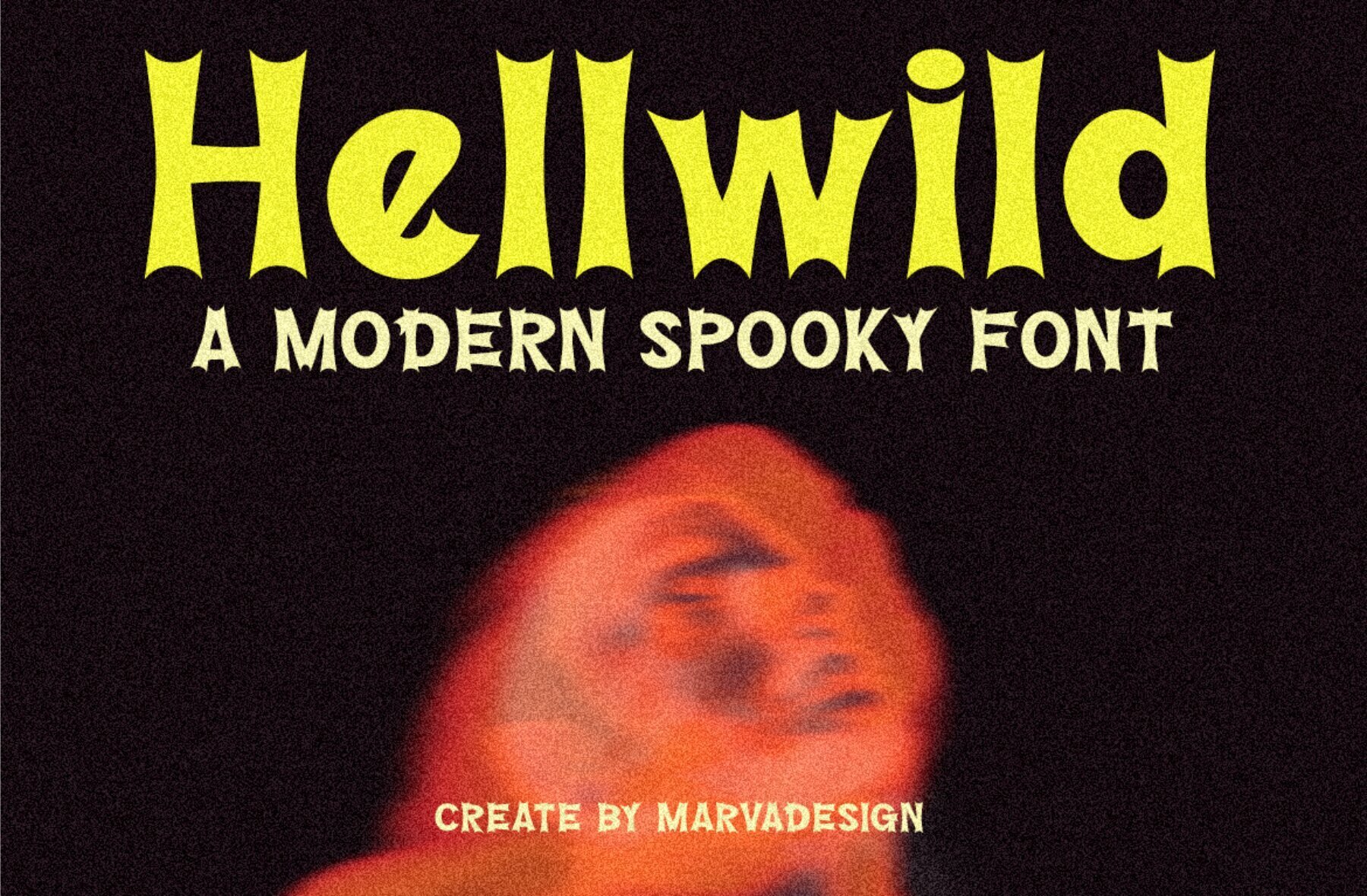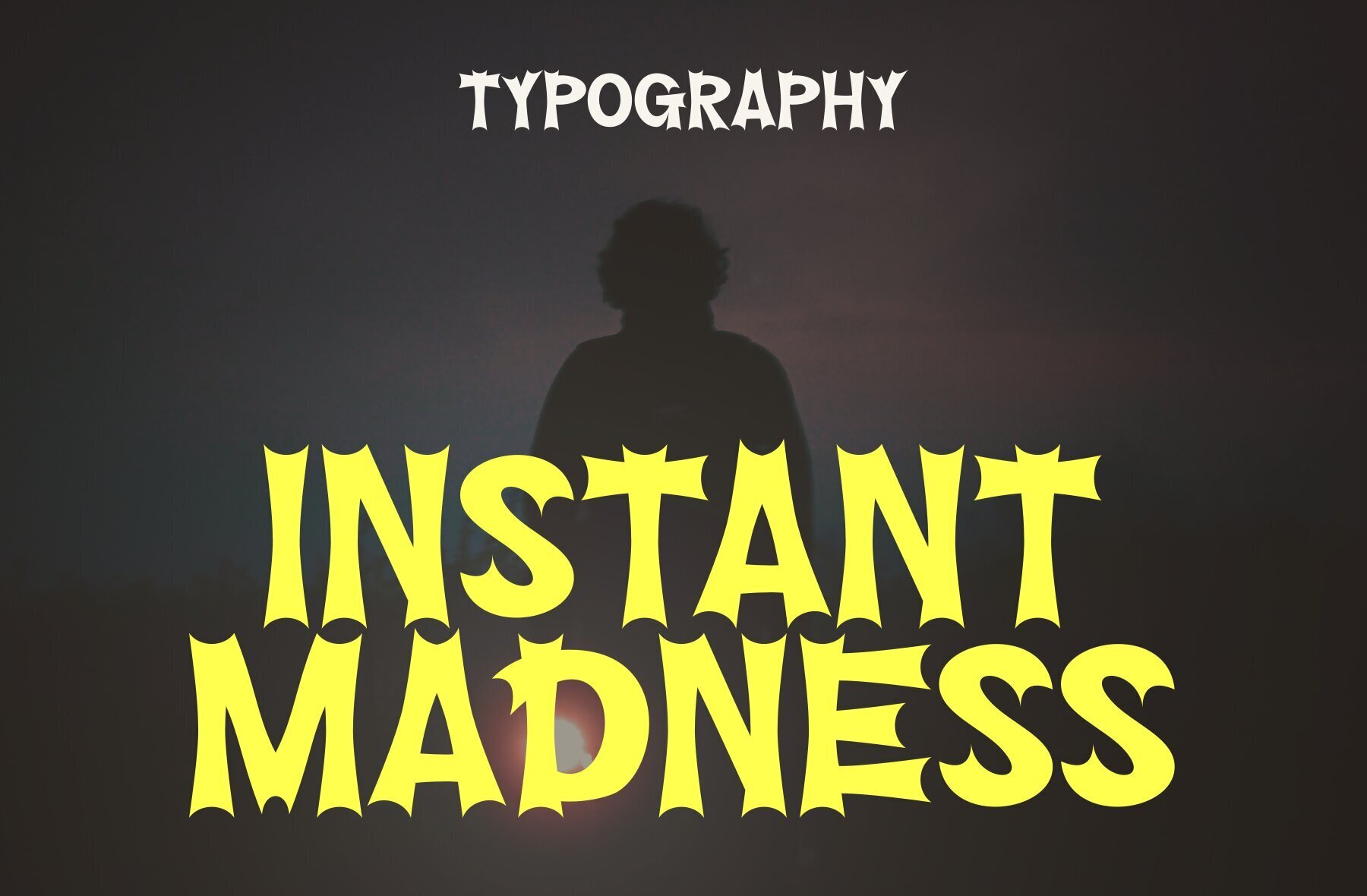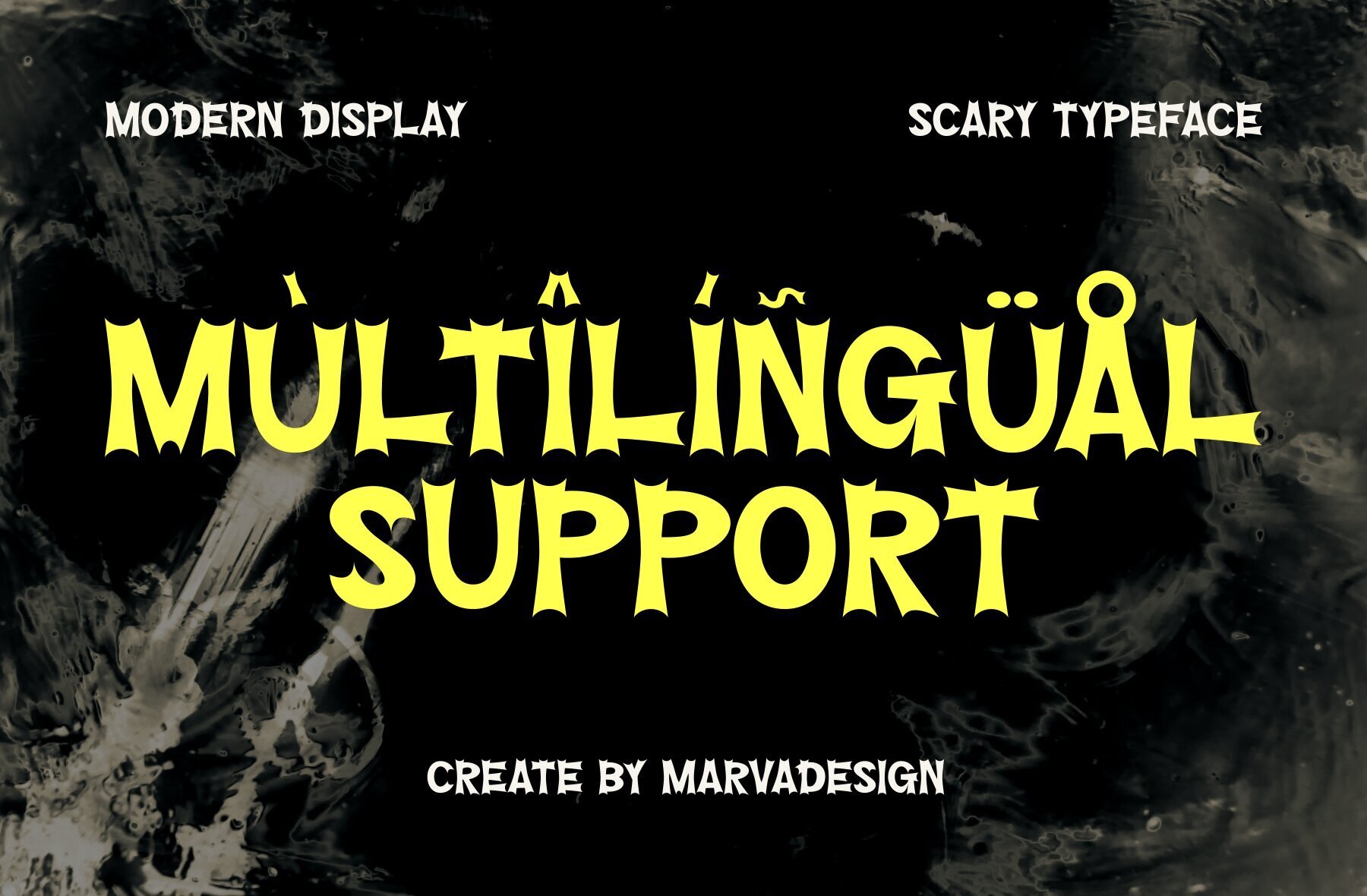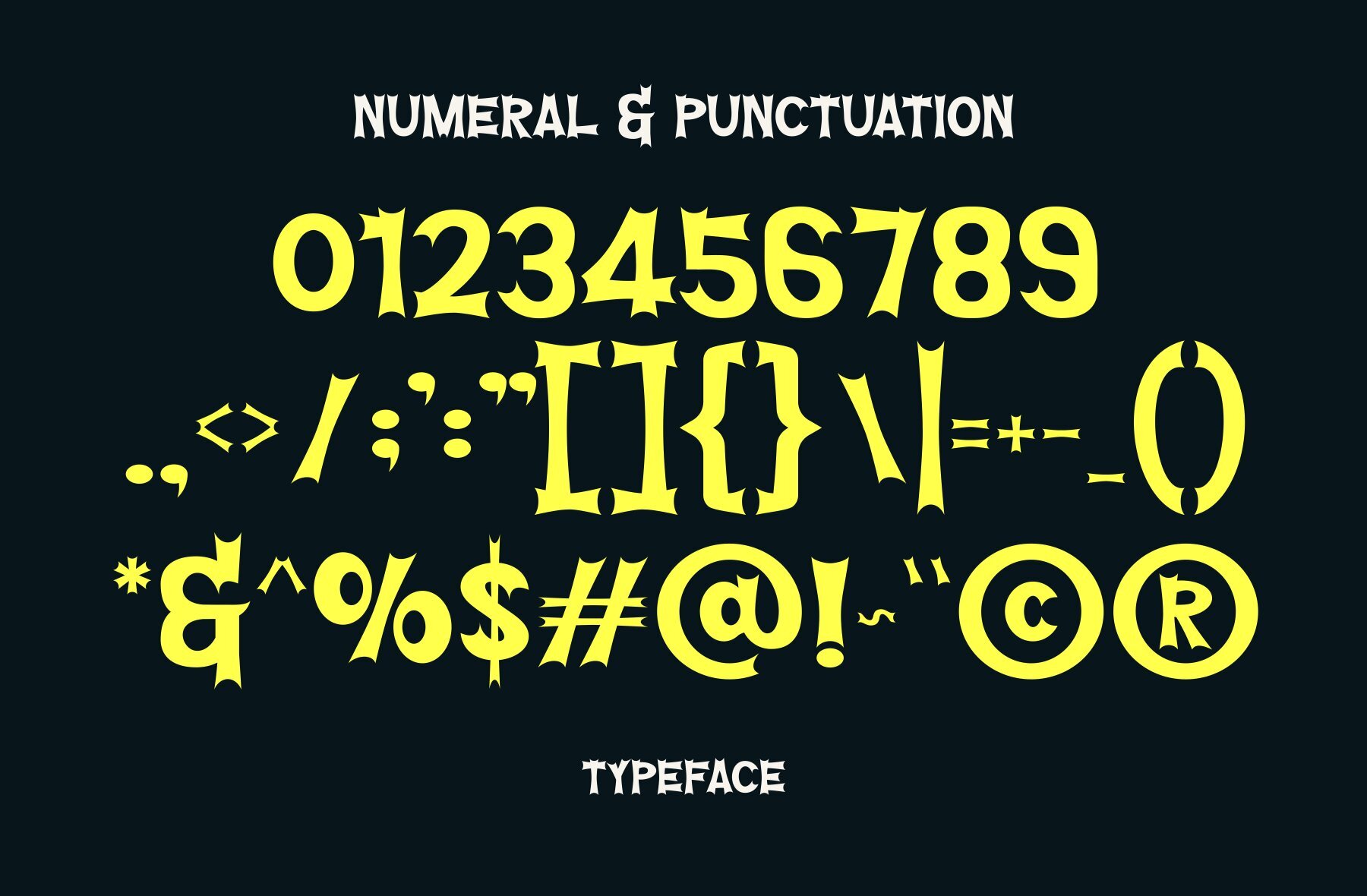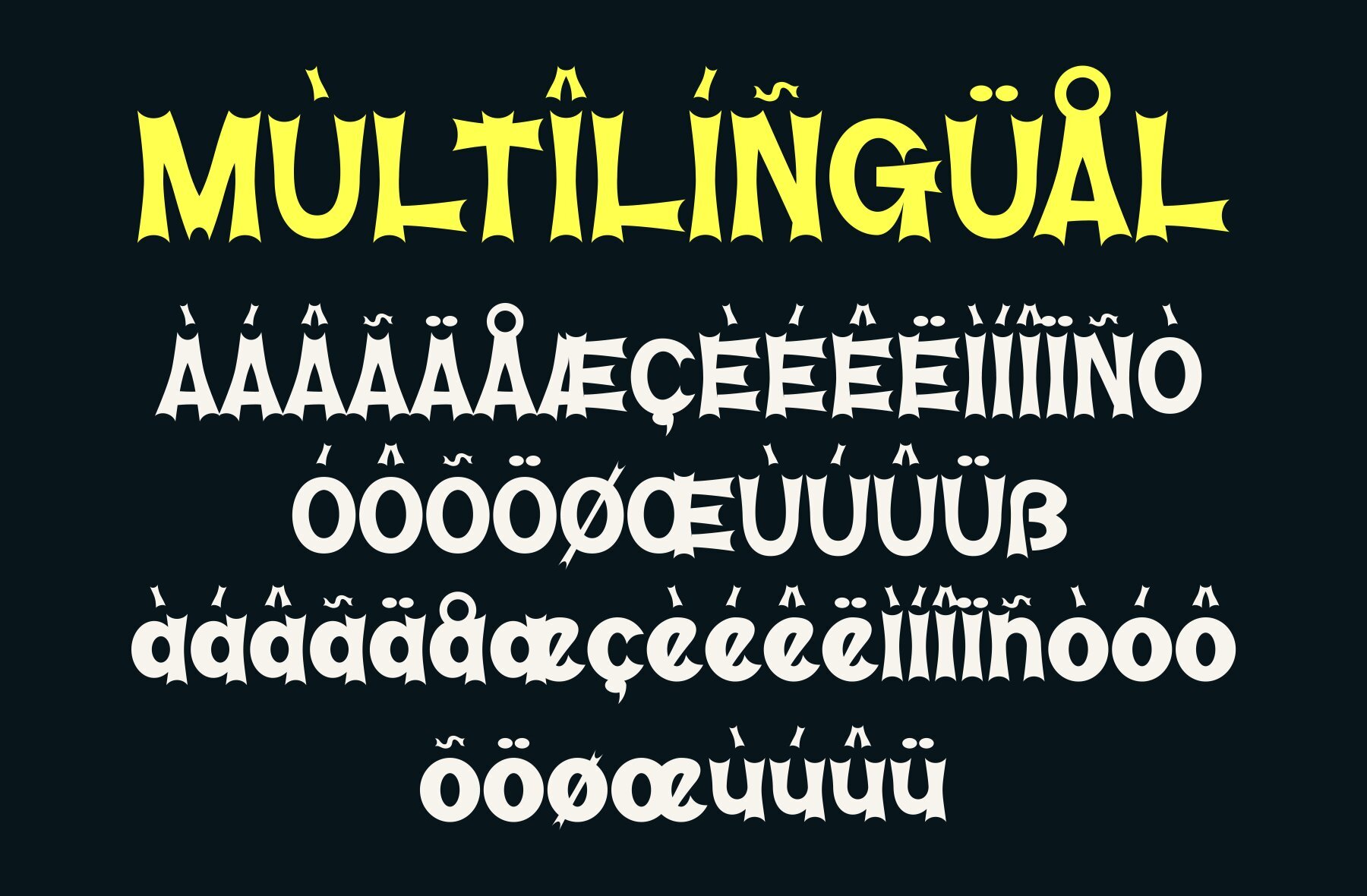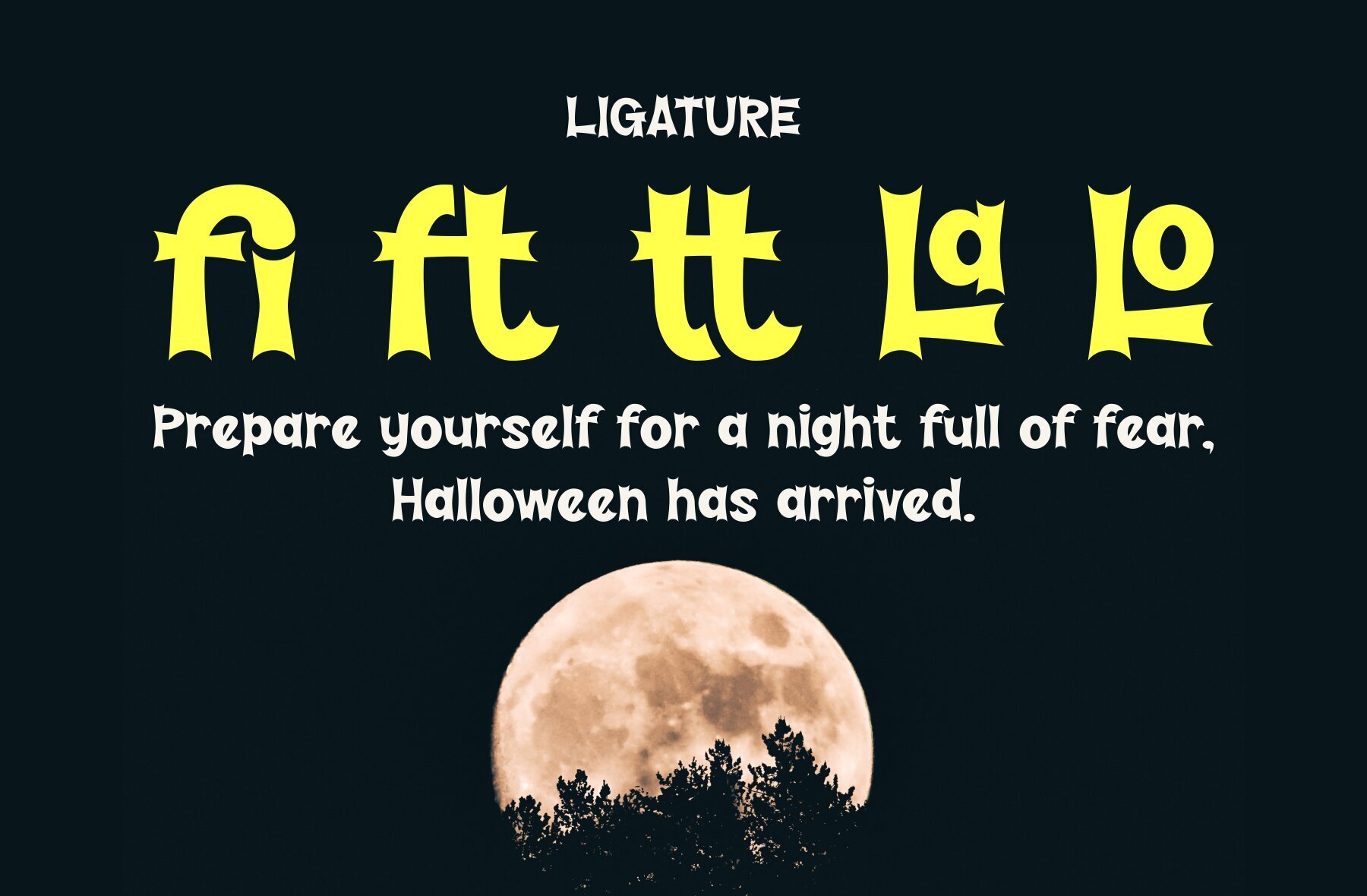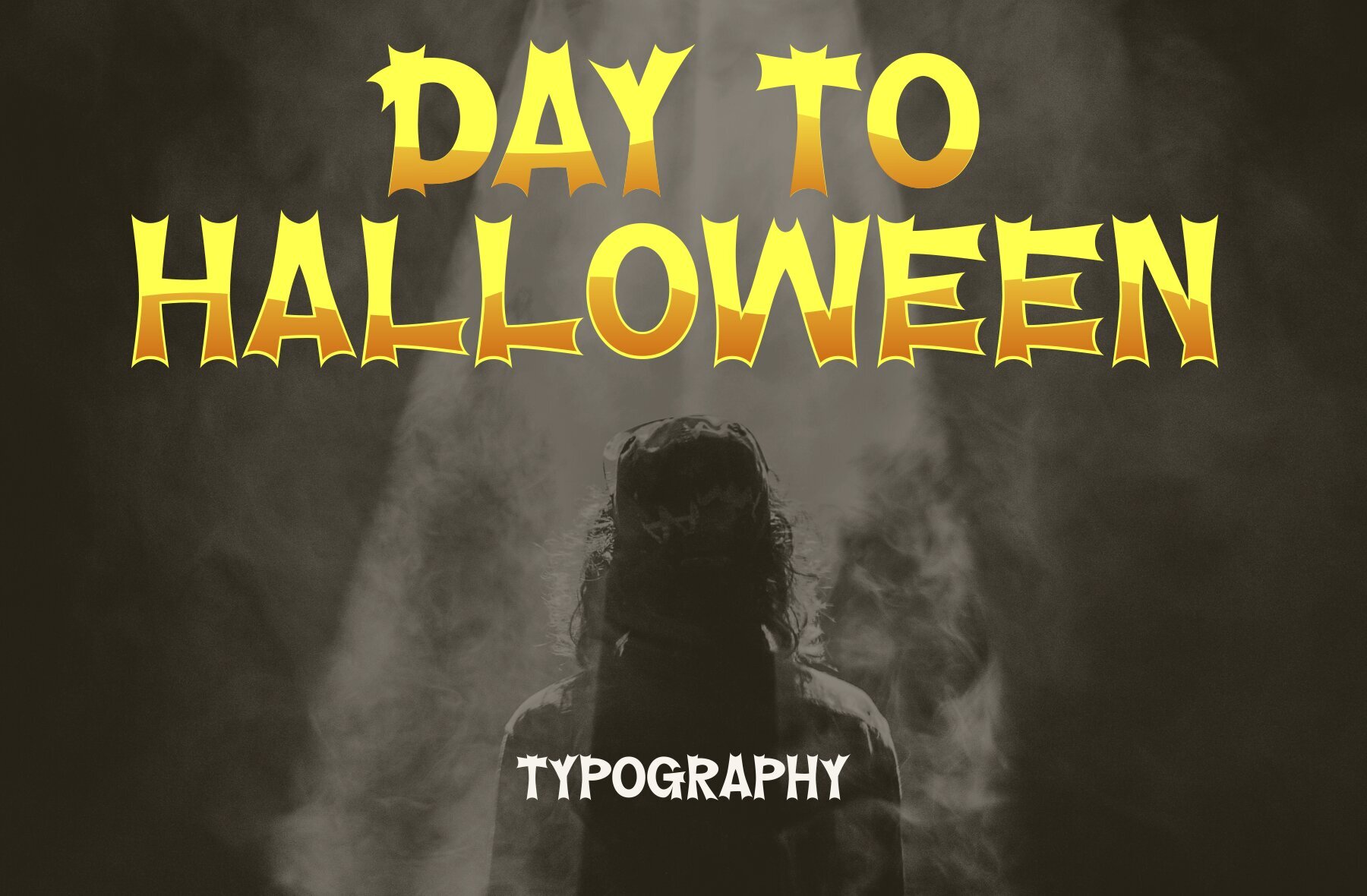
Hellwild Font
Hellwild Regular
Hellwild Font, crafted by Marvadesign, is a bold and authentic display typeface. Its modern style makes it perfect for various branding projects, including logos, templates, and product designs. This font truly stands out in a wide range of contexts.Hellwild: A Modern Display Typeface